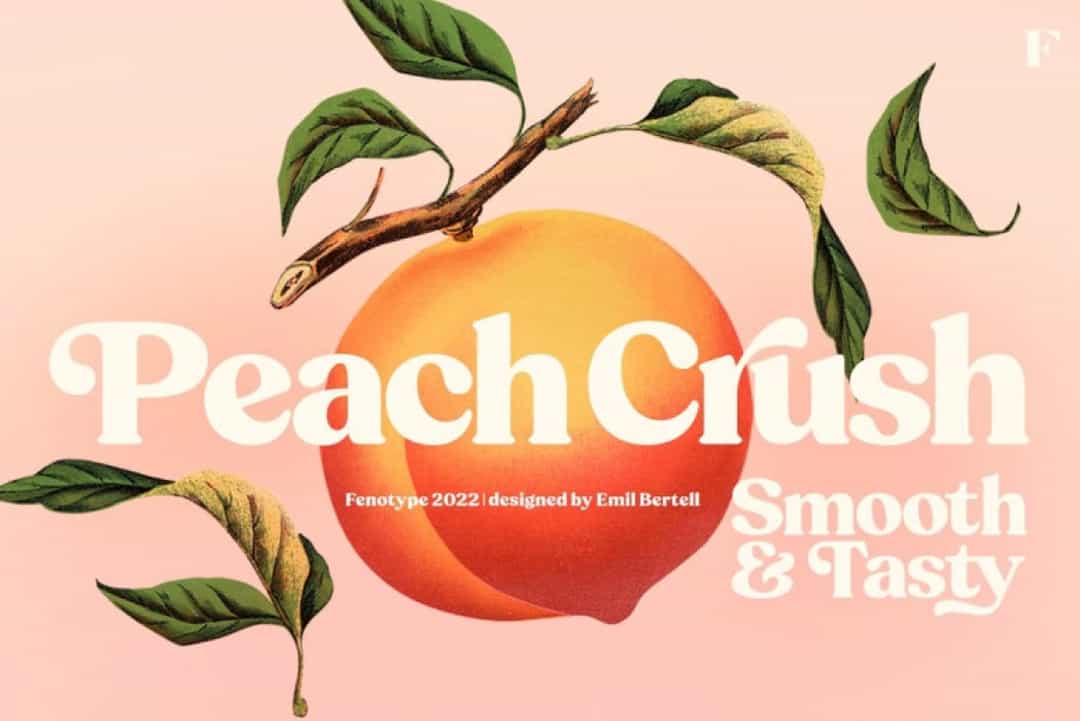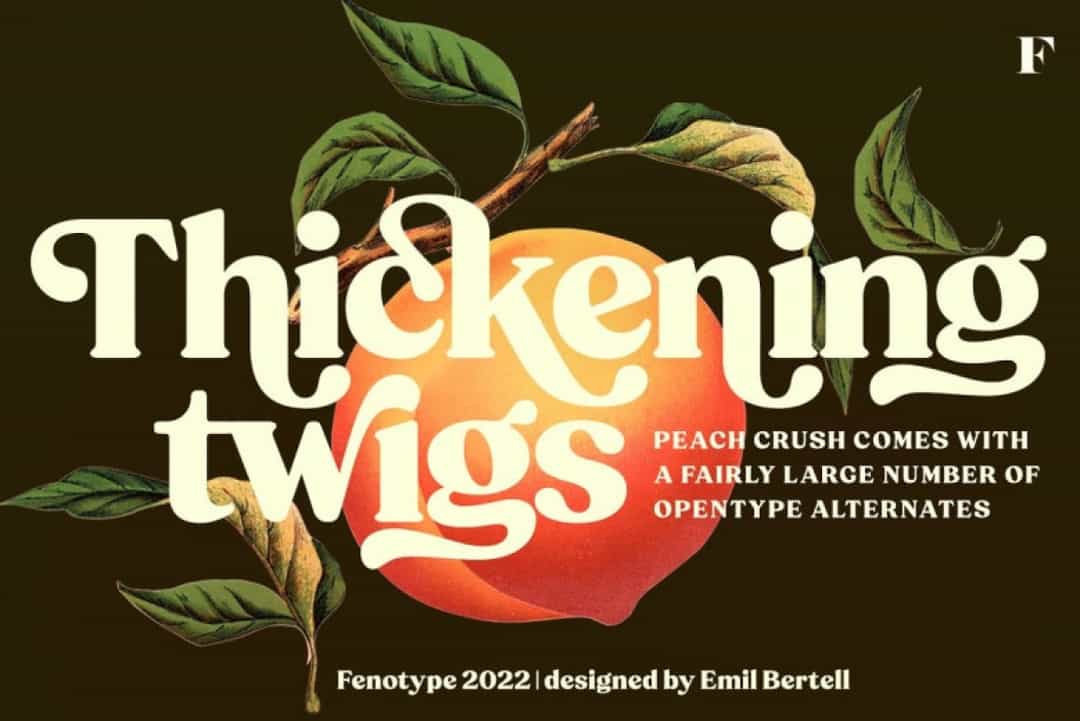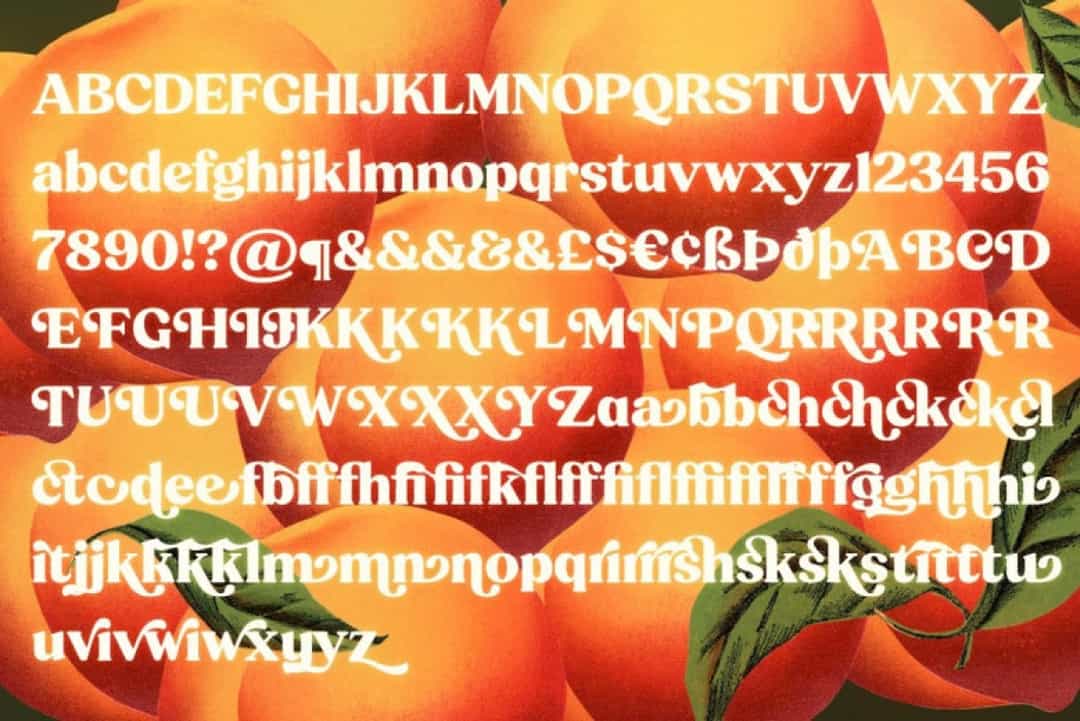
Peach Crush is an eye-catching vintage style serif font with soft appeal and features. Reminiscent of warm nostalgia, Peach Crush features contextual, swash, stylistic and titling alternatives as well as discretionary ligatures to provide more options than one font could.